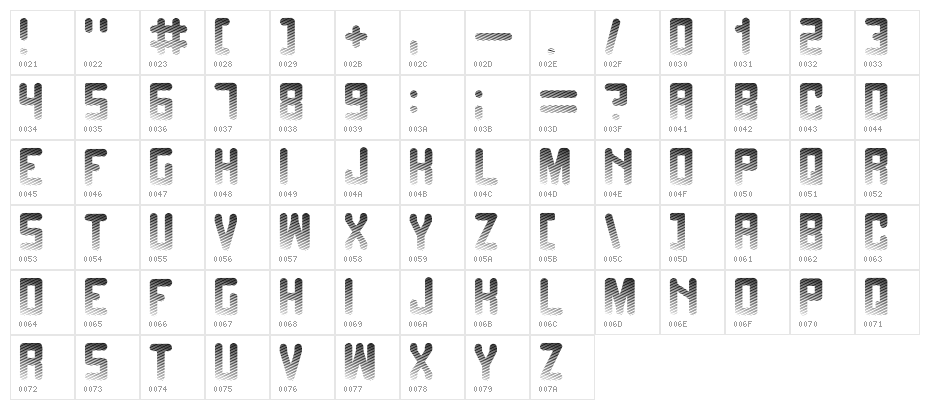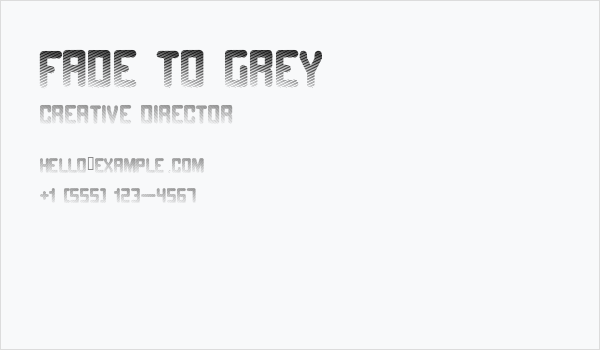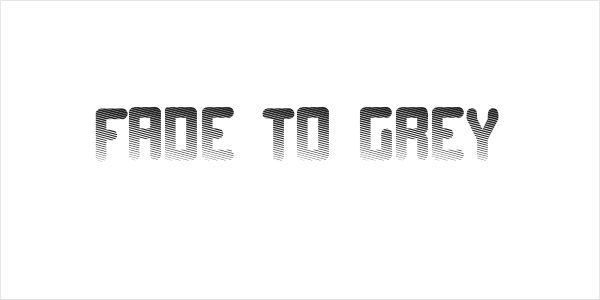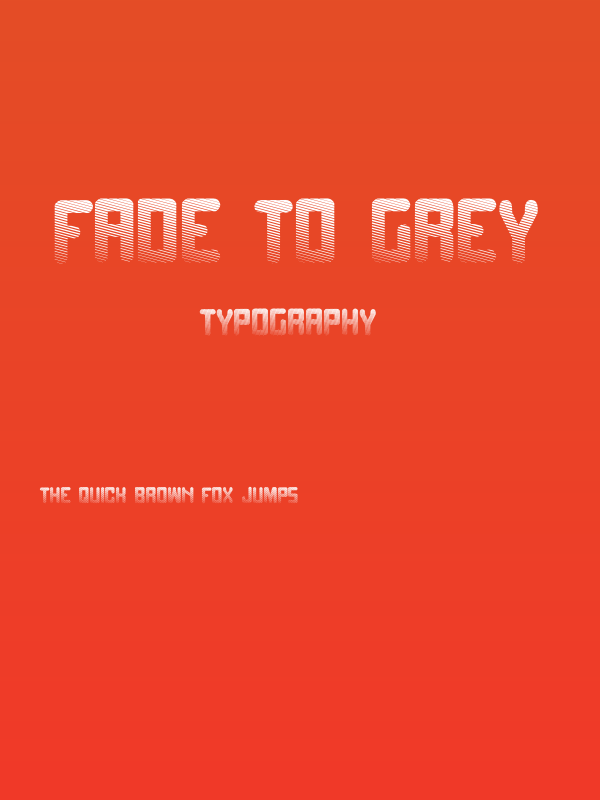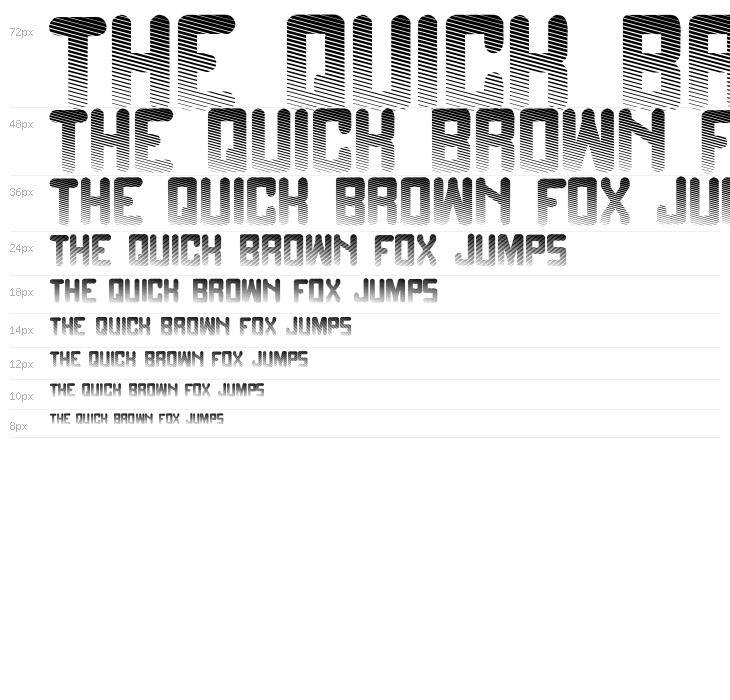
Fade to grey Font
Fade to grey Description
This font features a unique gradient effect, transitioning from solid black at the top to a lighter grey at the bottom. The characters are bold and geometric, with a modern and futuristic feel. The horizontal lines create a sense of movement and depth, making it visually striking. The uppercase and lowercase letters maintain a consistent style, with rounded edges and a uniform thickness. The numbers and special characters follow the same design principles, ensuring a cohesive look across all elements. This font is ideal for projects that require a bold statement and a contemporary aesthetic.
| Proposed Projects | Ideal for branding, posters, and digital media where a modern and eye-catching design is needed. |